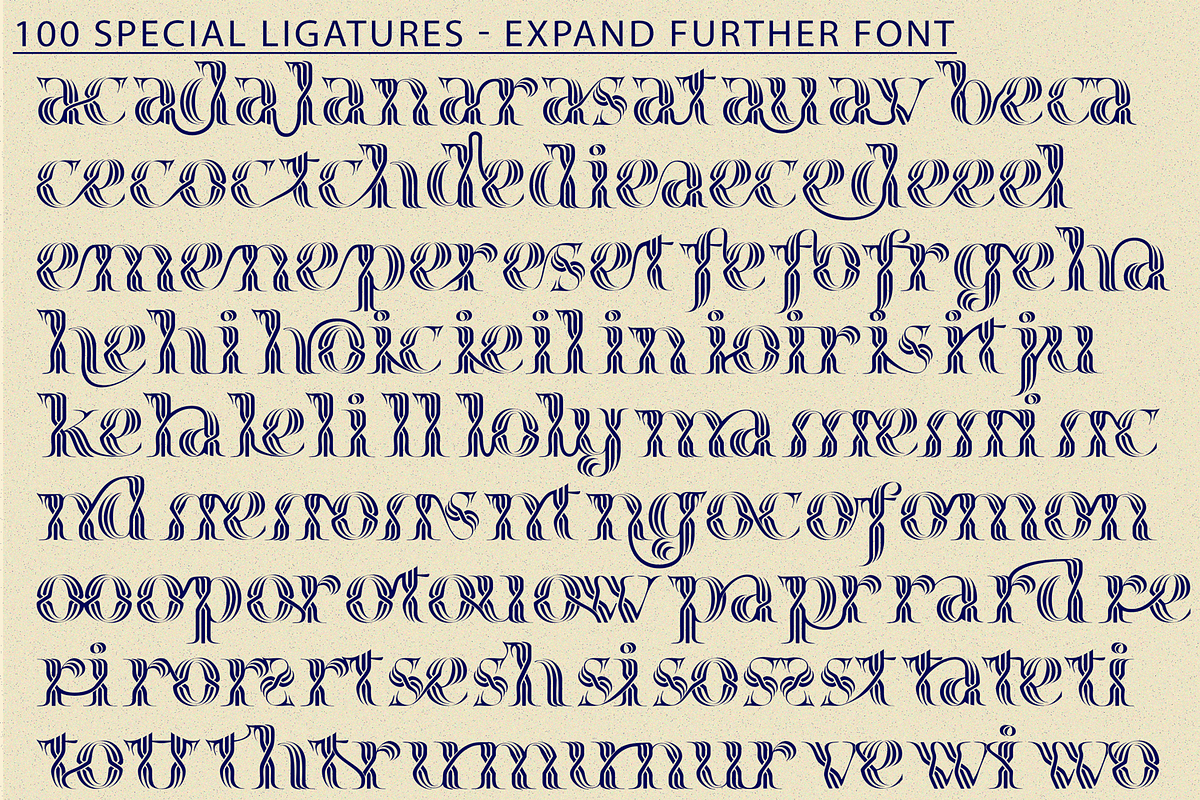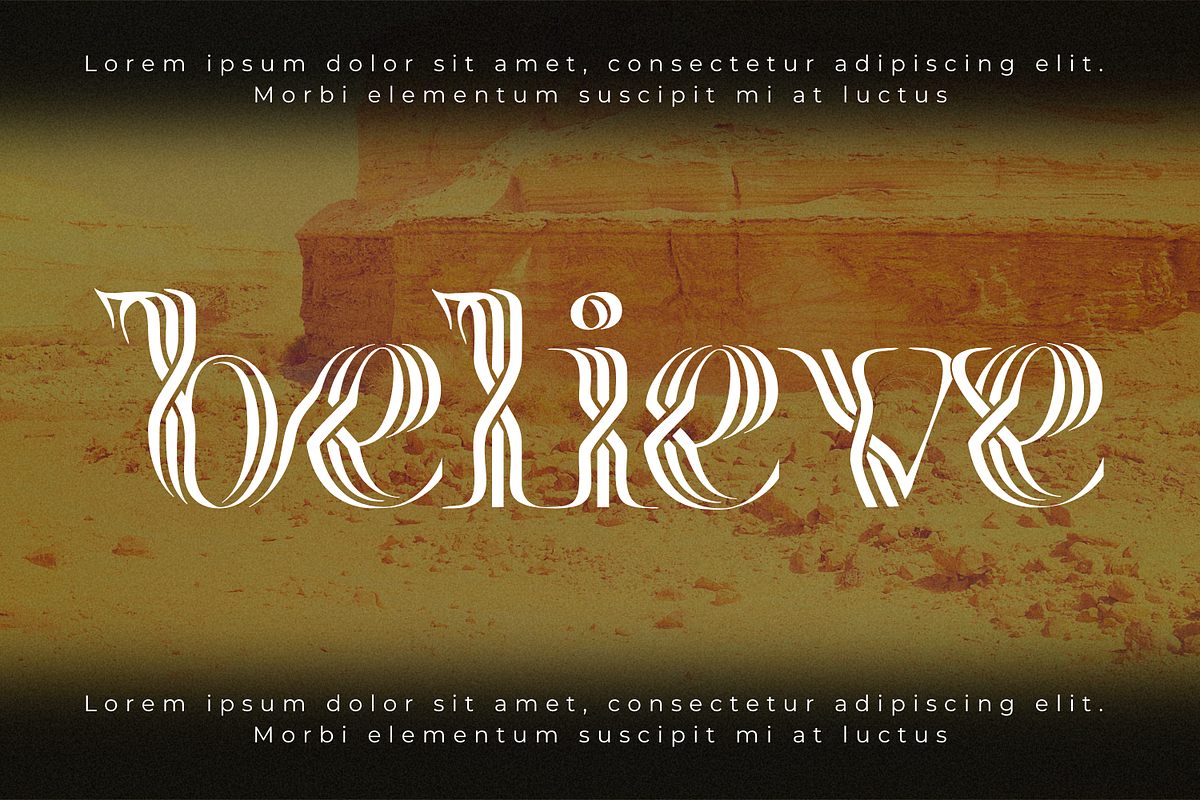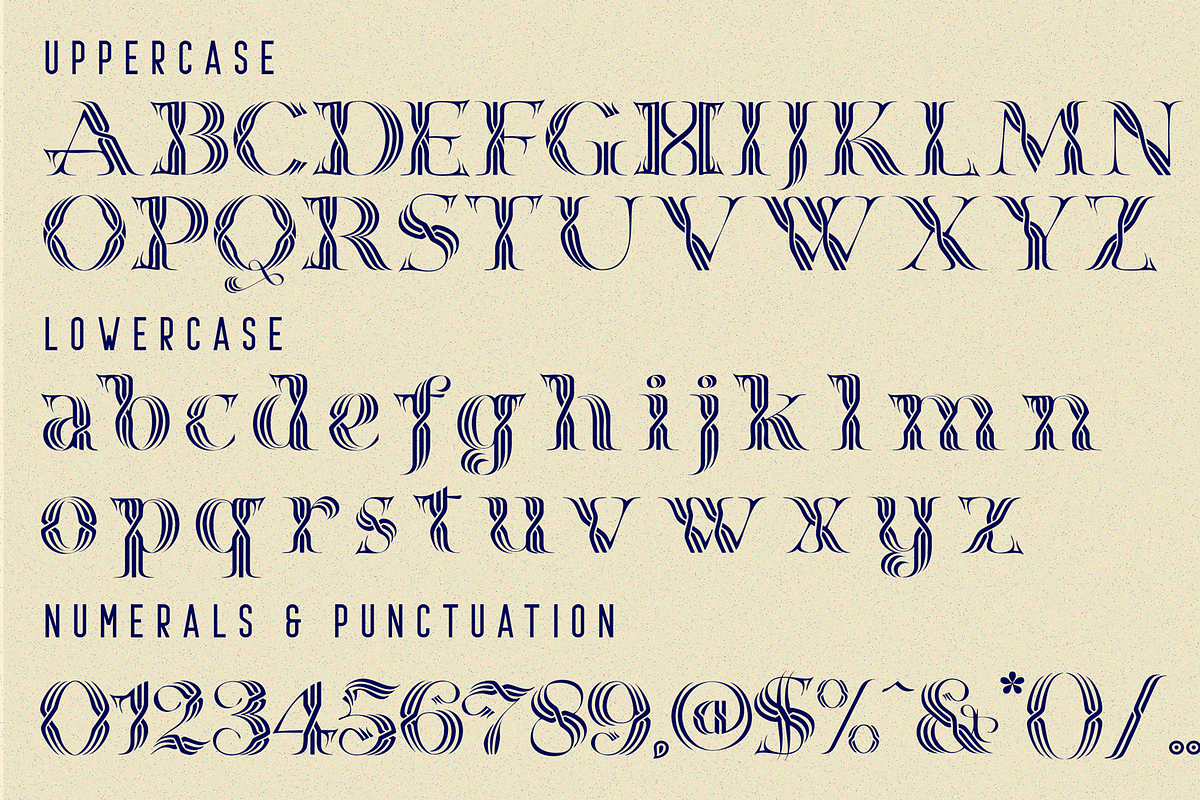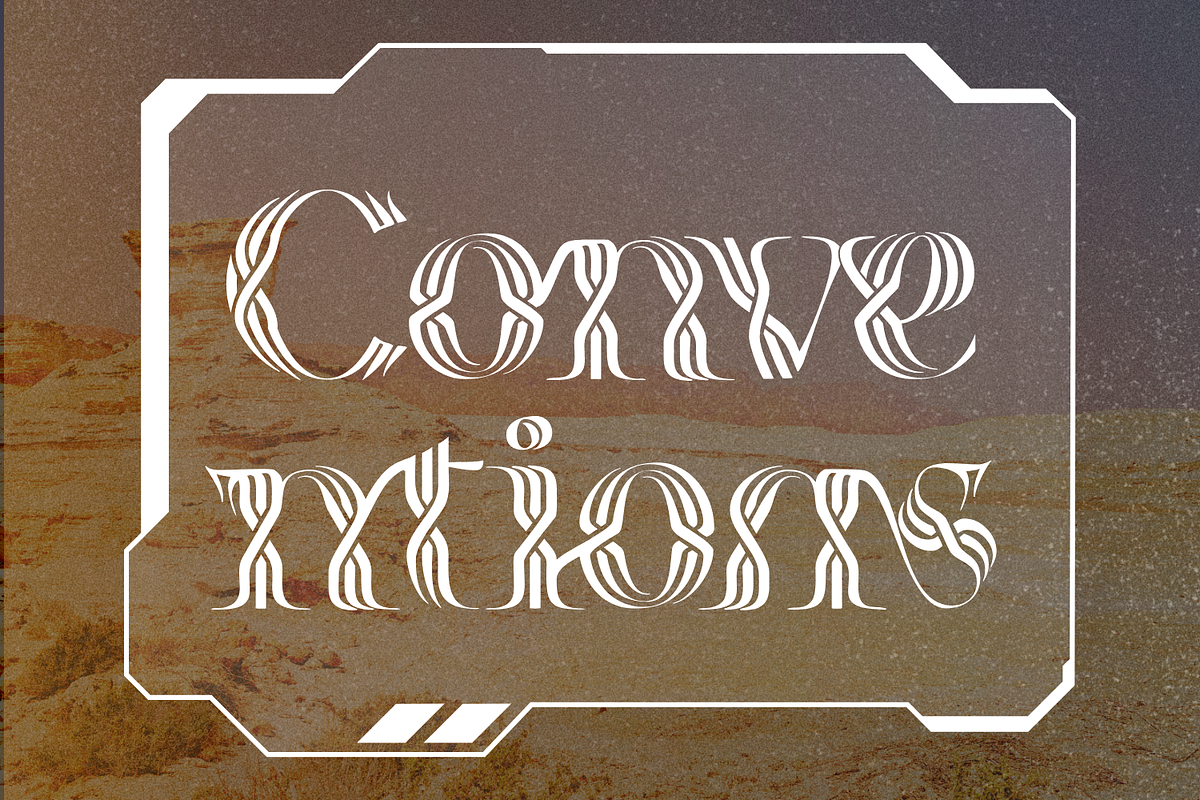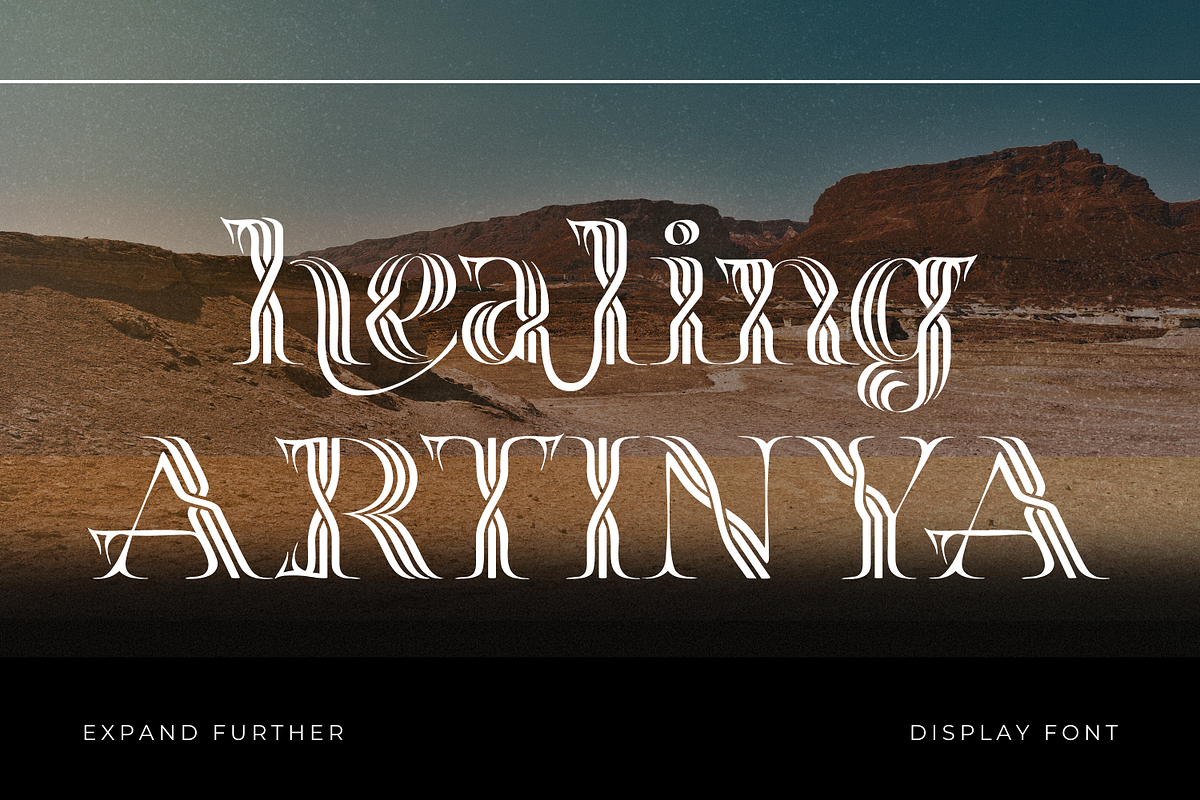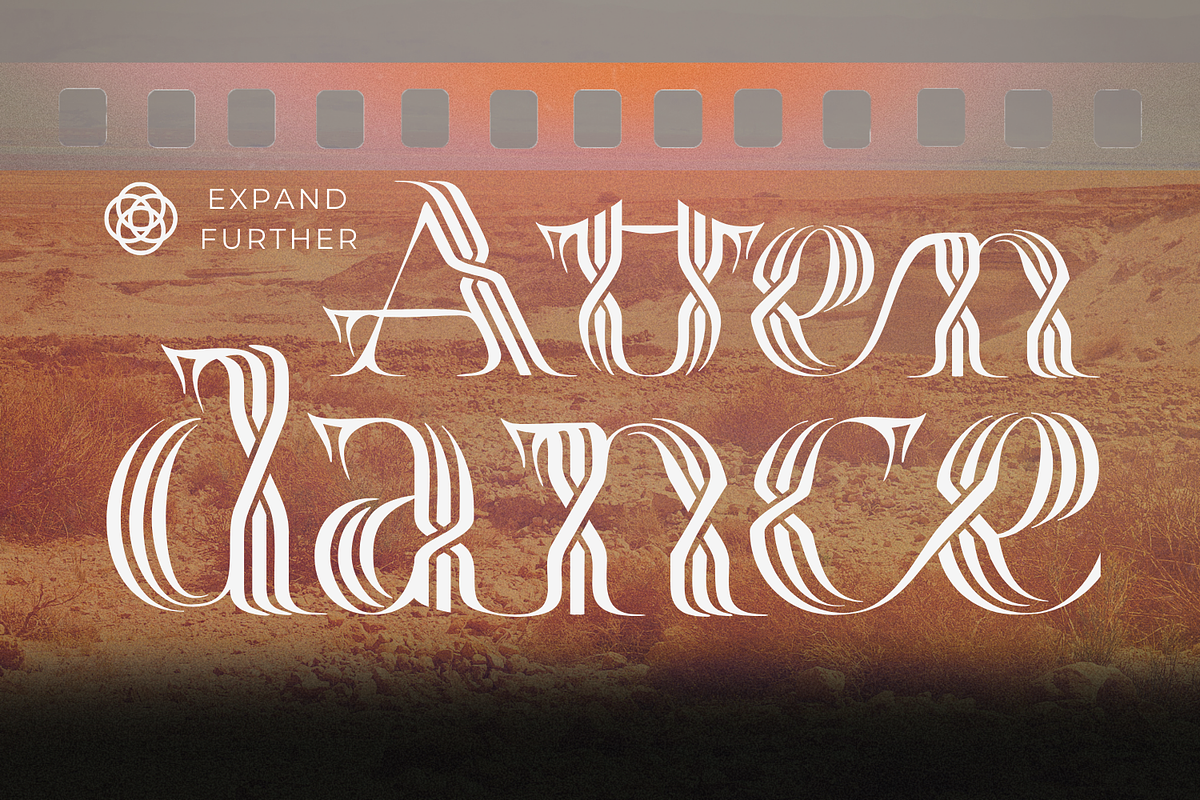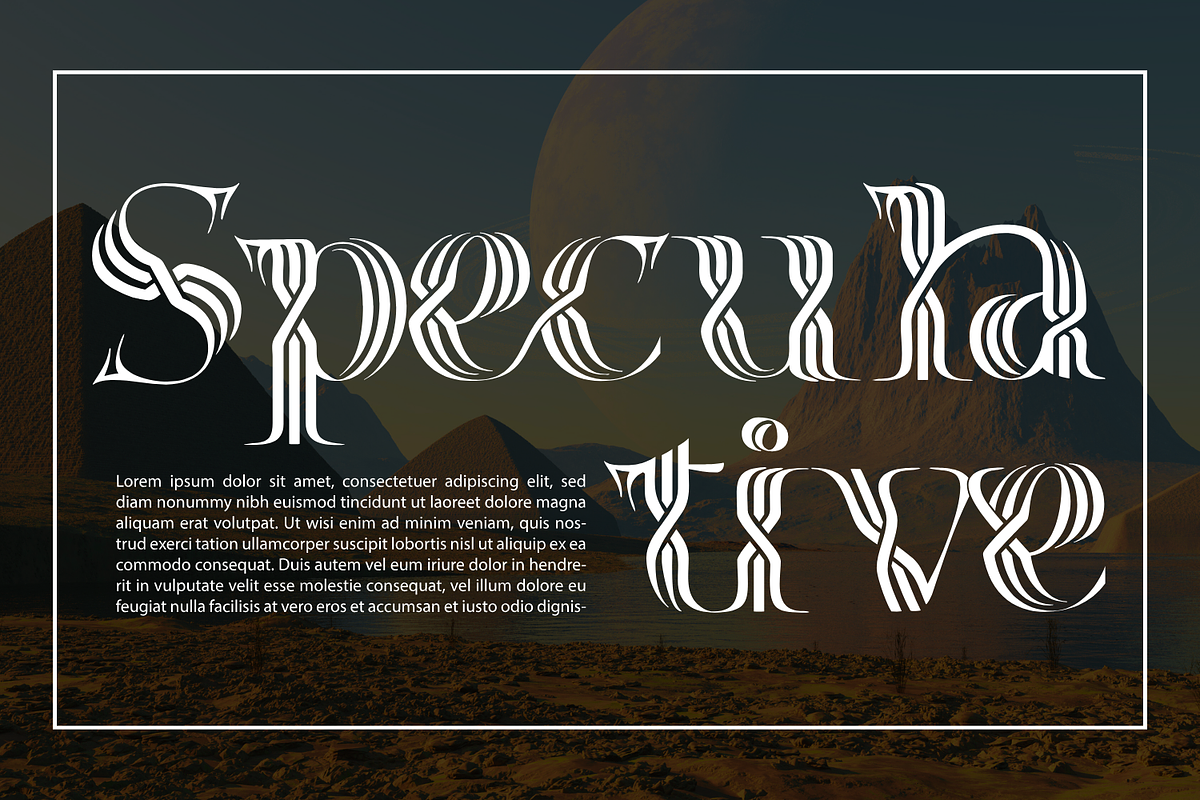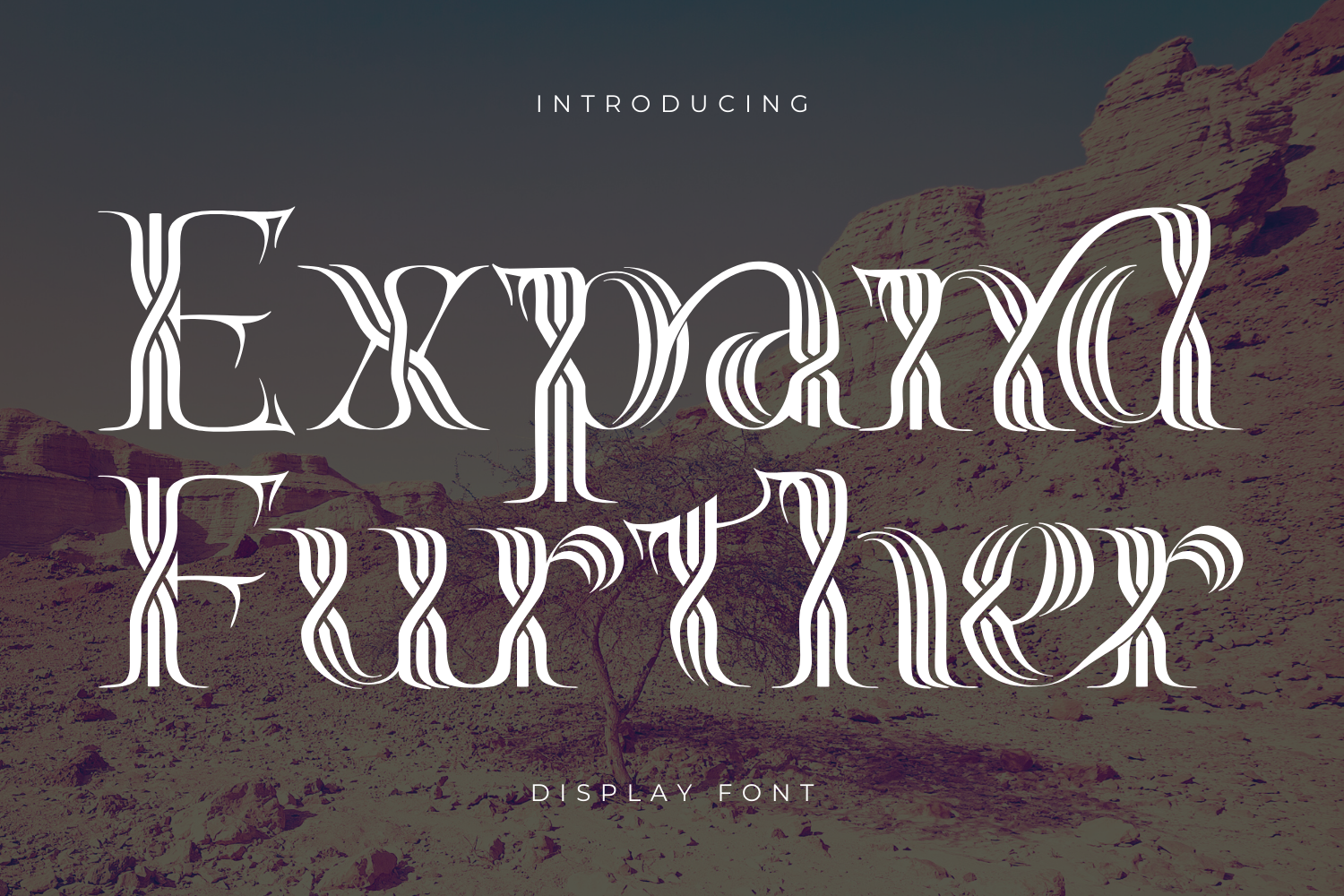
Expand Further – Inline Font
Expand Further Font – Elegant Inline Serif Font. Expand Further is a stunning Inline Serif typeface that blends decorative charm with timeless elegance. Designed with intricate inline details, this font exudes a unique and sophisticated aesthetic, making it perfect for branding, editorial design, packaging, and more.
This typeface includes a full set of uppercase and lowercase letters, along with 100+ special ligatures, numerals, punctuation, and accented characters for multilingual support. Whether you're crafting luxurious headlines, stylish logos, or eye-catching typography, Expand Further delivers versatility and refinement in every letterform. Elevate your designs with the artistic beauty of Expand Further – a perfect fusion of tradition and modernity.
Expand Further was built with OpenType features and includes 100 ligatures, alternate, numbers, punctuation, and it also supports other languages.
ac ad al an ar as at au av be ca ce ch co ct de di ea ec ed ee el em en ep er es et fe fo fr ge ha he hi ho ie ic il in io ir is it ju ke la le li ll lo ly ma me mi nc nd ne ng no nt ns oc of om on oo op or ot ou ow pa pr ra rd re ri ro rs rt se sh si so ss st ta te th ti to tr tt um un ur ve wi wo